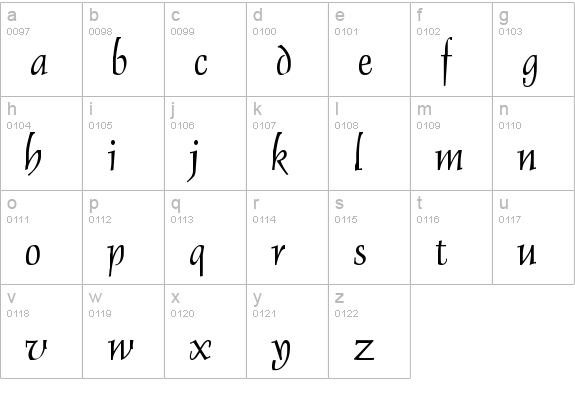
Sallmon-Normal Font Details
Sallmon-Normal is the standard, neutral variant in the Sallmon typeface family \xE2\x80\x94 well suited to general body text, paragraphs, and standard typographic work.
Sallmon-Normal font is a visually stunning typeface that effortlessly blends elegance and modernity. Its sleek and clean lines make it perfect for a wide range of design projects, from sophisticated branding to eye-catching headlines. This font exudes a sense of professionalism and sophistication that is sure to captivate any audience. With its balanced letterforms and subtle yet distinctive curves, Sallmon-Normal font strikes the ideal balance between tradition and innovation. It has been meticulously crafted to ensure legibility, making it an excellent choice for both print and digital applications. Whether you're designing a logo, creating a website, or crafting a poster, this font will elevate your work to new heights. One of the best aspects of Sallmon-Normal font is that it is available for free download at FontsMarket.com. This means that you can easily access and utilize this remarkable typeface without any cost. Whether you're a professional designer or a hobbyist, this font provides an incredible value and opens up a world of creative possibilities. With its timeless appeal and versatile nature, Sallmon-Normal font is the perfect addition to your font library. Its wide range of weights and styles allows for endless combinations and customization options. This font will effortlessly elevate your designs, adding a touch of sophistication and refinement. So don't miss out on the opportunity to enhance your design projects with Sallmon-Normal font. Download it for free at FontsMarket.com and discover the endless possibilities that this incredible typeface has to offer.